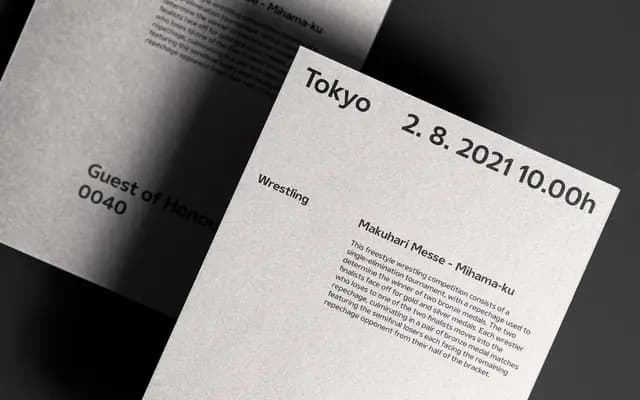
Gelder Sans
A Frutiger-inspired humanist sans with open apertures and organic shapes, offered in eight weights with italics and extensive language support.
Drawing from Frutiger's legibility-first principles, Gelder Sans blends grotesque structure with humanist warmth to produce a typeface suited to both screen and print. The family spans eight weights with matching italics across 16 fonts in total, and includes over 1,000 characters covering Western, Central and South European scripts as well as Vietnamese. Alternate characters, small caps, ligatures and ten numeral variants give designers room to work at a typographic level beyond the basic.
Inspired by Frutiger, the typeface sits between grotesque and humanist categories, combining open apertures with organic shapes and uniform stroke widths — characteristics that align most closely with the humanist sans tradition.